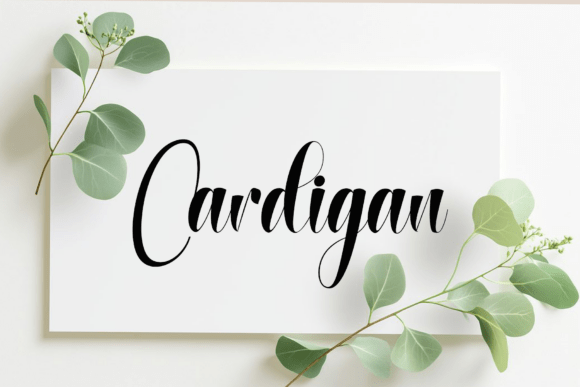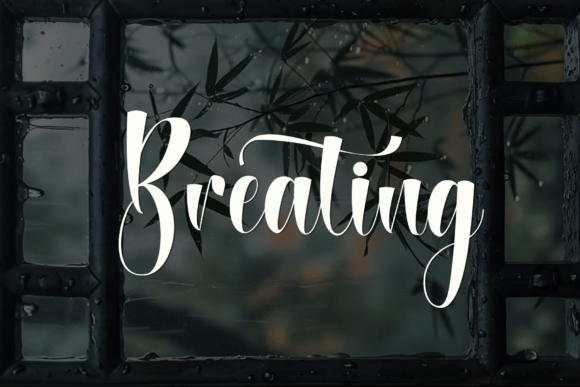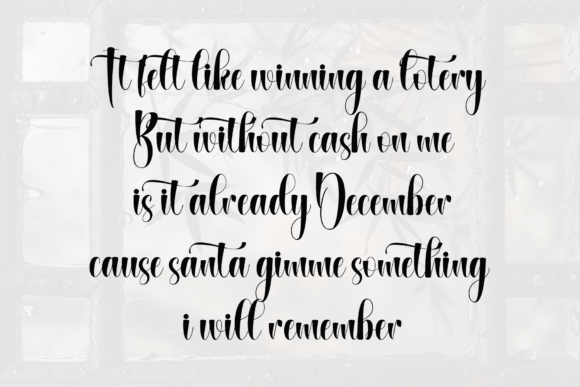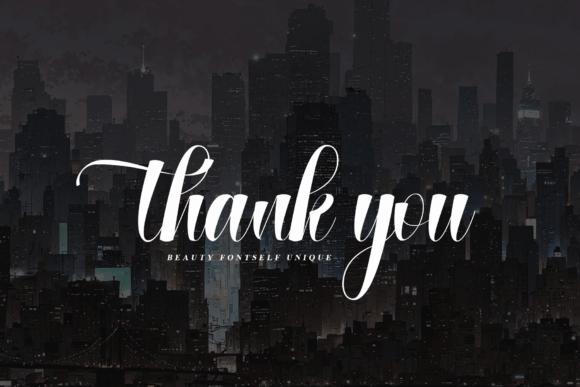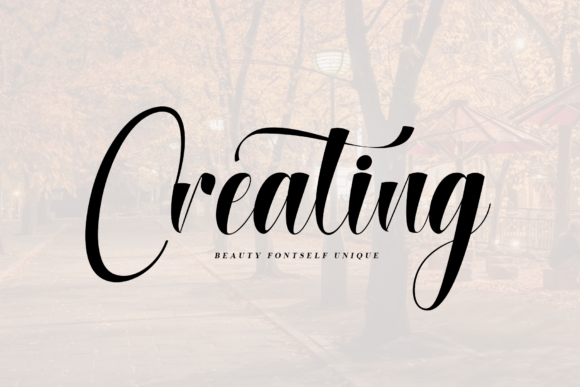
Introducing Creating Font: The Timeless Handwritten Font for Stunning Designs
Are you a designer or crafter looking for a font that can add a personal touch to your creations? Look no further than Creating Font, a lovely and timeless handwritten font that is perfect for creating eye-catching logos, branding, and quotes. With its unique and beautiful touch, Creating Font is sure to make your design come alive!
Handwritten fonts have a way of adding a personal and human touch to any design. They evoke feelings of warmth, friendliness, and approachability, making them perfect for designs that need to connect with the audience on a personal level. Creating Font is no exception, with its delicate and elegant strokes that give it a timeless and classic feel.
What Makes Creating Font Special?
So, what sets Creating Font apart from other handwritten fonts? Here are just a few reasons why Creating Font is a cut above the rest:
• Unique and Beautiful Touch: Every letter in Creating Font has a unique and beautiful touch that gives it a one-of-a-kind feel. The font’s creator has poured their heart and soul into crafting each letter, resulting in a font that is both elegant and distinctive.
• Timeless Appeal: Unlike trendy fonts that quickly go out of style, Creating Font has a timeless appeal that will keep your designs looking fresh and relevant for years to come.
• Versatility: Creating Font is incredibly versatile, making it perfect for a wide range of design applications, from logos and branding to quotes and social media graphics.
• Ease of Use: Despite its intricate and delicate strokes, Creating Font is surprisingly easy to use, even for designers who are new to working with handwritten fonts.
Whether you’re a professional designer or a crafter who loves to dabble in design, Creating Font is the perfect addition to your font collection. Here are just a few ways you can use Creating Font to elevate your designs:
• Logos and Branding: Use Creating Font to create stunning logos and branding materials that will help your business stand out from the crowd.
• Quotes and Social Media Graphics: Add a personal touch to your quotes and social media graphics with Creating Font, making them more relatable and engaging for your audience.
• Stationery and Invitations: Use Creating Font to create beautiful stationery and invitations that will make your correspondence stand out.
Tips for Working with Creating Font
To get the most out of Creating Font, here are a few tips to keep in mind:
• Experiment with Different Sizes: Creating Font looks great in a variety of sizes, so don’t be afraid to experiment to find the perfect size for your design.
• Pair with Other Fonts: Creating Font pairs beautifully with other fonts, so try combining it with a bold font for added contrast.
• Use it Sparingly: While Creating Font is beautiful, it can be overwhelming if used too much. Use it sparingly to add a touch of elegance to your design.
In conclusion, Creating Font is a timeless handwritten font that is perfect for designers and crafters looking to add a personal touch to their creations. With its unique and beautiful touch, Creating Font is sure to make your design come alive! Whether you’re creating logos, branding, quotes, or social media graphics, Creating Font is the perfect choice.